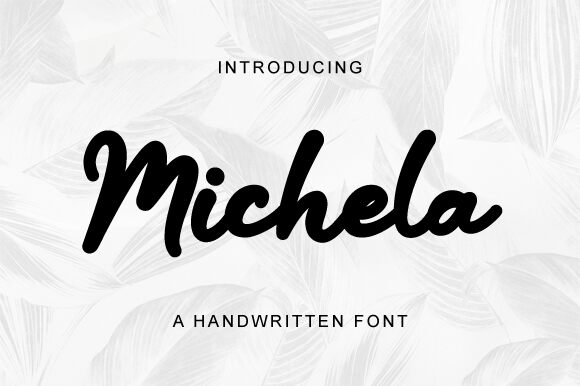
Michela
Michela, a bold and captivating handwritten font designed by Nirmala Creative, exudes an effortless charm and a sense of authenticity. This expressive typeface boasts fluid, organic strokes that seamlessly flow across the page, conveying a heartfelt, artisanal aesthetic. The font's dynamic, assertive nature commands attention, making it an ideal choice for a wide range of design projects.
Michela's versatility shines through, lending itself perfectly to branding, packaging, and editorial applications. Its bold, brush-like qualities lend an impactful presence to headlines, titles, and attention-grabbing elements, while its readable letterforms make it suitable for body text and longer passages. This font's versatility allows designers to infuse their work with a touch of handcrafted elegance, elevating the overall design experience.